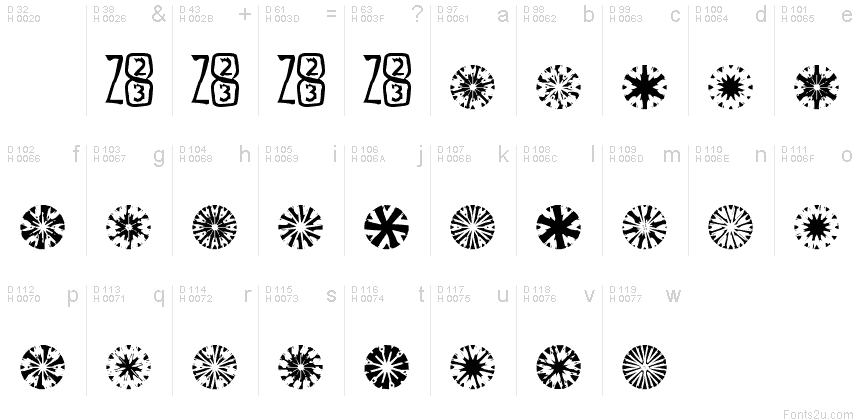
Zone23_23gyros
Zone23_23gyros font by ZONE23 is a free dingbat font that turns every keystroke into a bold spinning emblem. Each mark looks like a gyroscope in motion—chunky black blades, petal-like spokes, and hypnotic concentric rings that feel almost mechanical and almost floral at the same time. Used in clusters, these symbols build dense, rhythmic patterns; dropped in alone, they act like punchy graphic stamps that grab the eye instantly.
Using Zone23_23gyros, you can spin out psychedelic posters, techno or rave flyers, logo marks, badge systems, pattern-heavy packaging, and edgy social graphics. This free font also shines as a decorative border or divider when repeated in a line. For balance, pair its busy circular symbols with a clean geometric sans and keep your color palette tight so the gyro shapes do the visual talking.